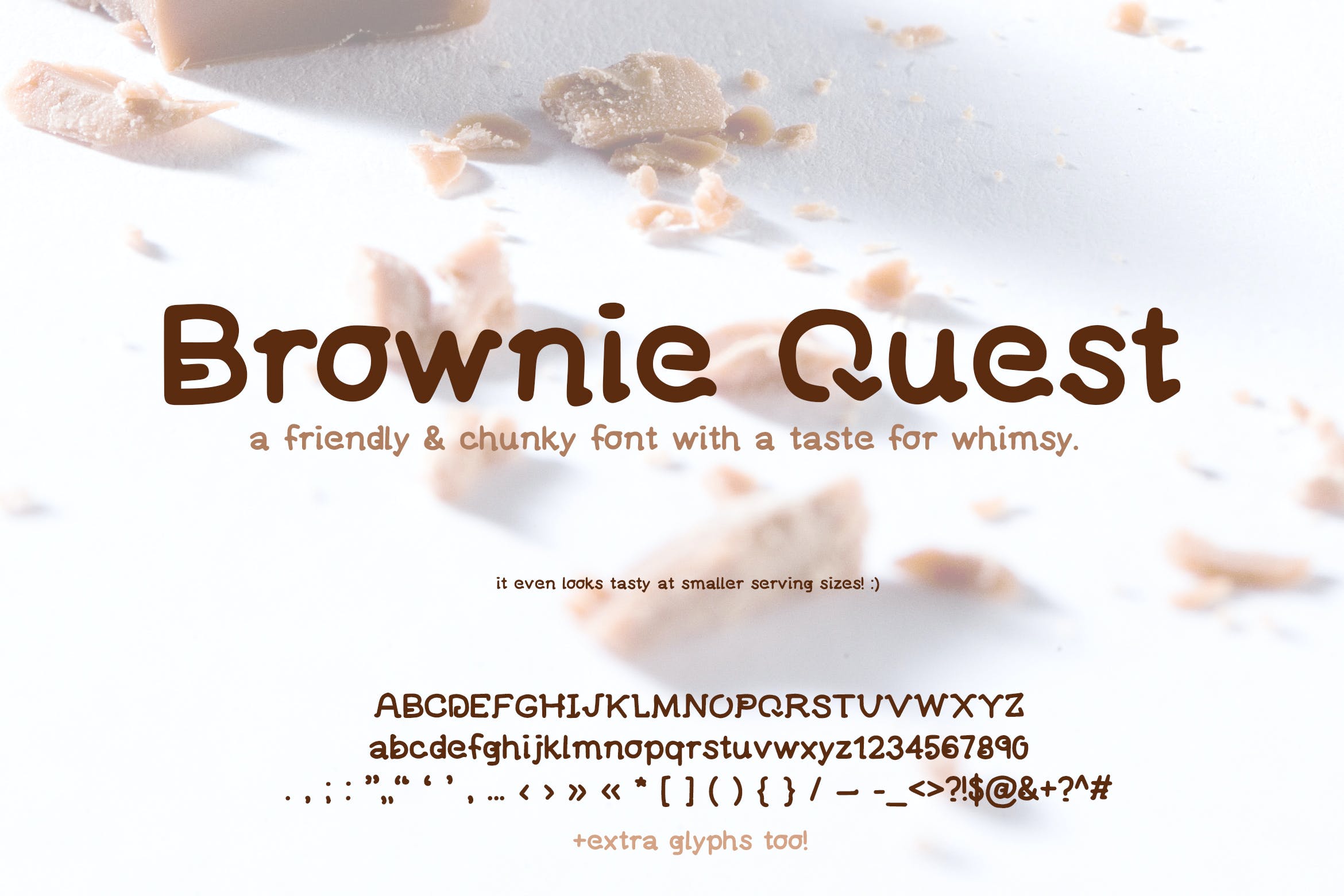
Introducing Brownie Quest, a cute, chunky handwritten font!
Every letter was lovingly drawn by me, while happily thinking about brownies (I can’t eat gluten… but I can admire from far away!). This font would be a great fit for packaging, branding, invitations, and more! Enjoy!